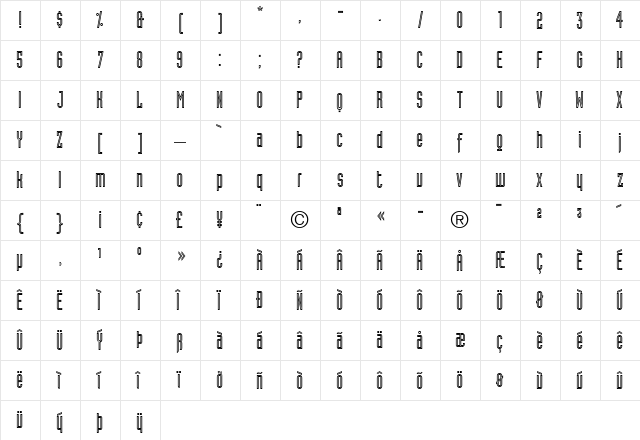
Industria InlineA Regular Font Preview
Industria InlineA Regular
Design Context for Industria InlineA Typeface
Industria InlineA is built around its visual character rather than neutral utility — its distinctive forms are designed to make an impression at display sizes.
Font Pairing: Pair with a clean neutral sans-serif for body copy to let Industria InlineA's character lead without overwhelming the composition.
Pro Tip: Treat Industria InlineA as the centrepiece of your typographic hierarchy. One strong heading set in a decorative face can carry an entire layout.